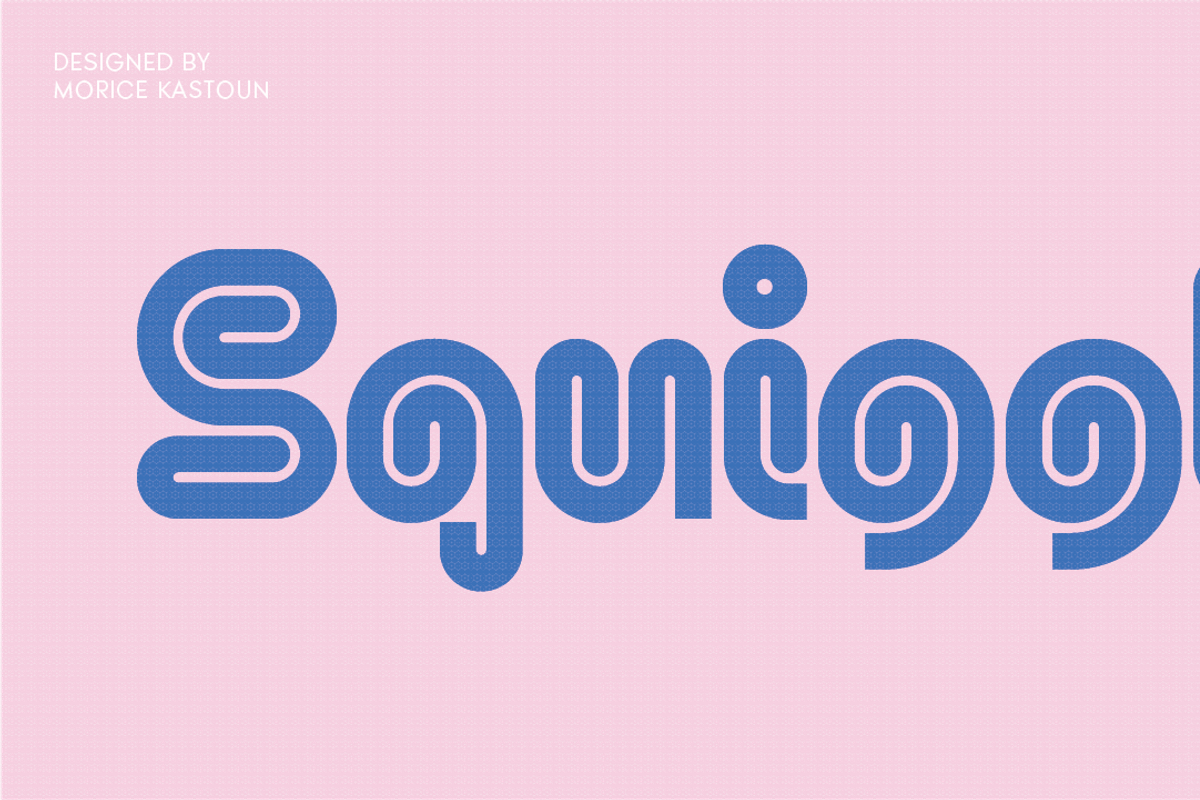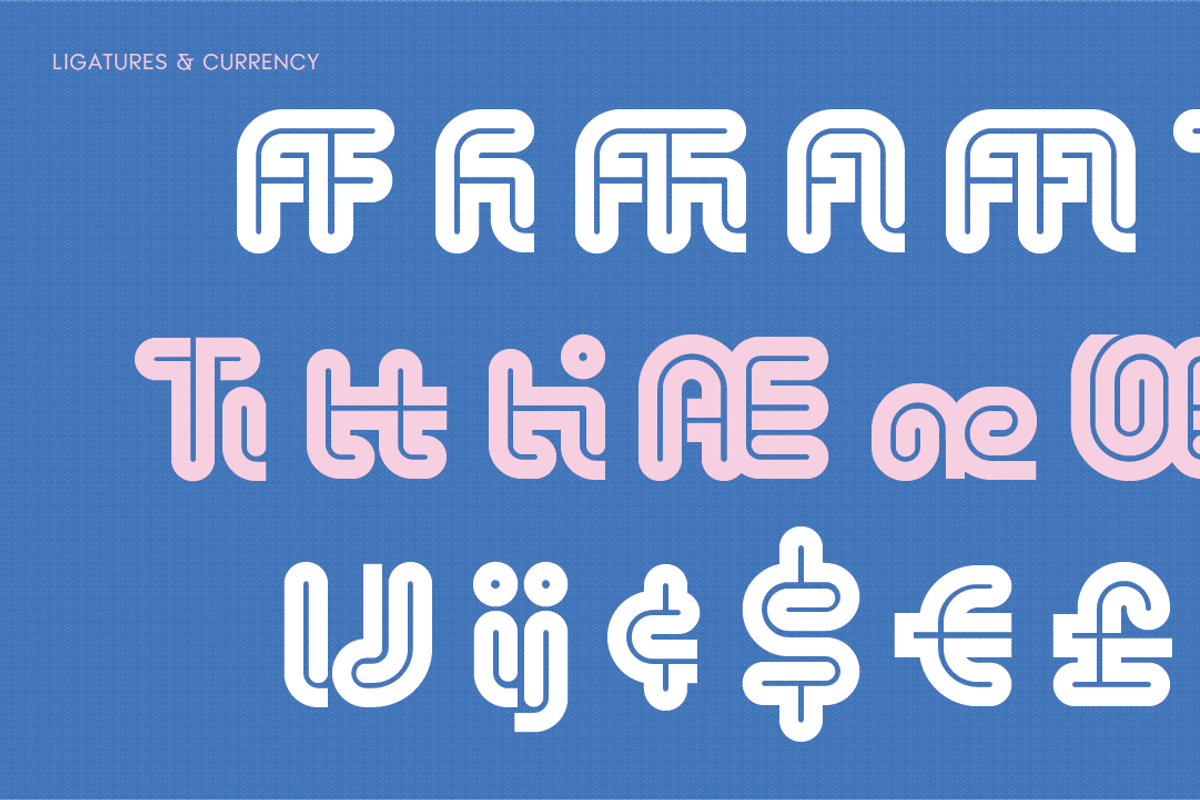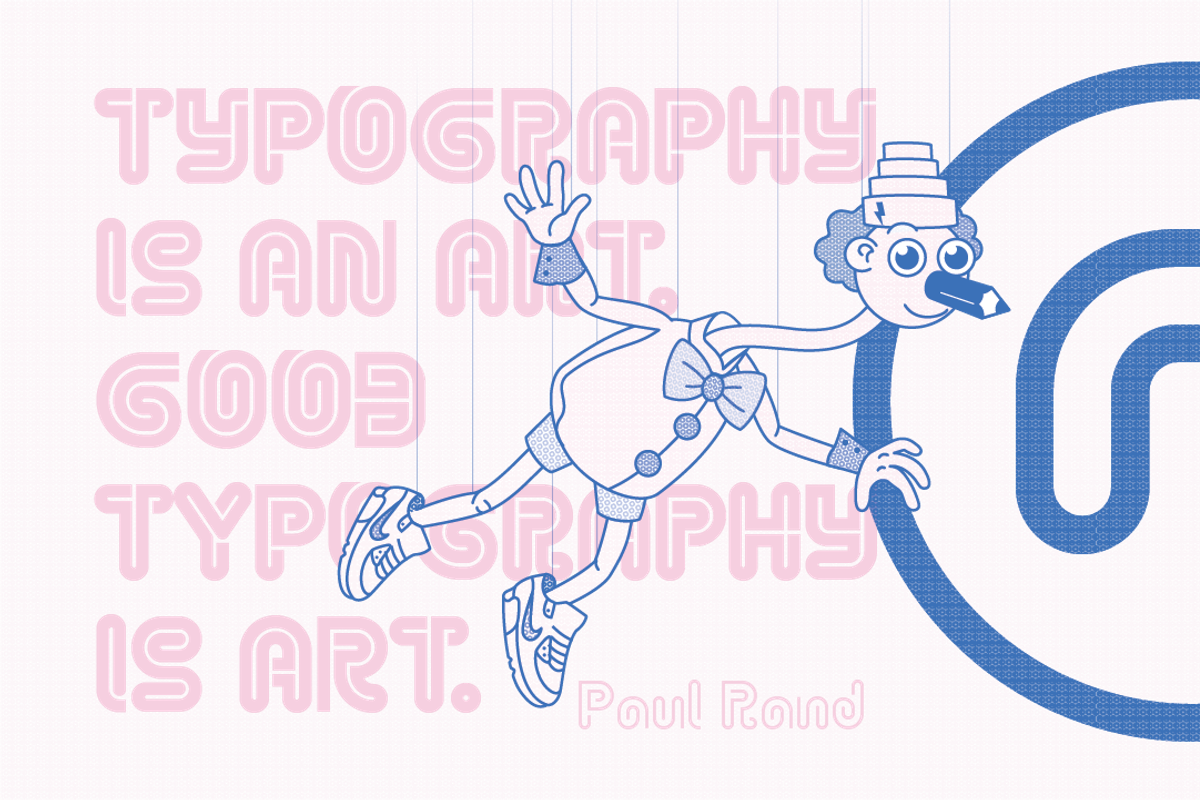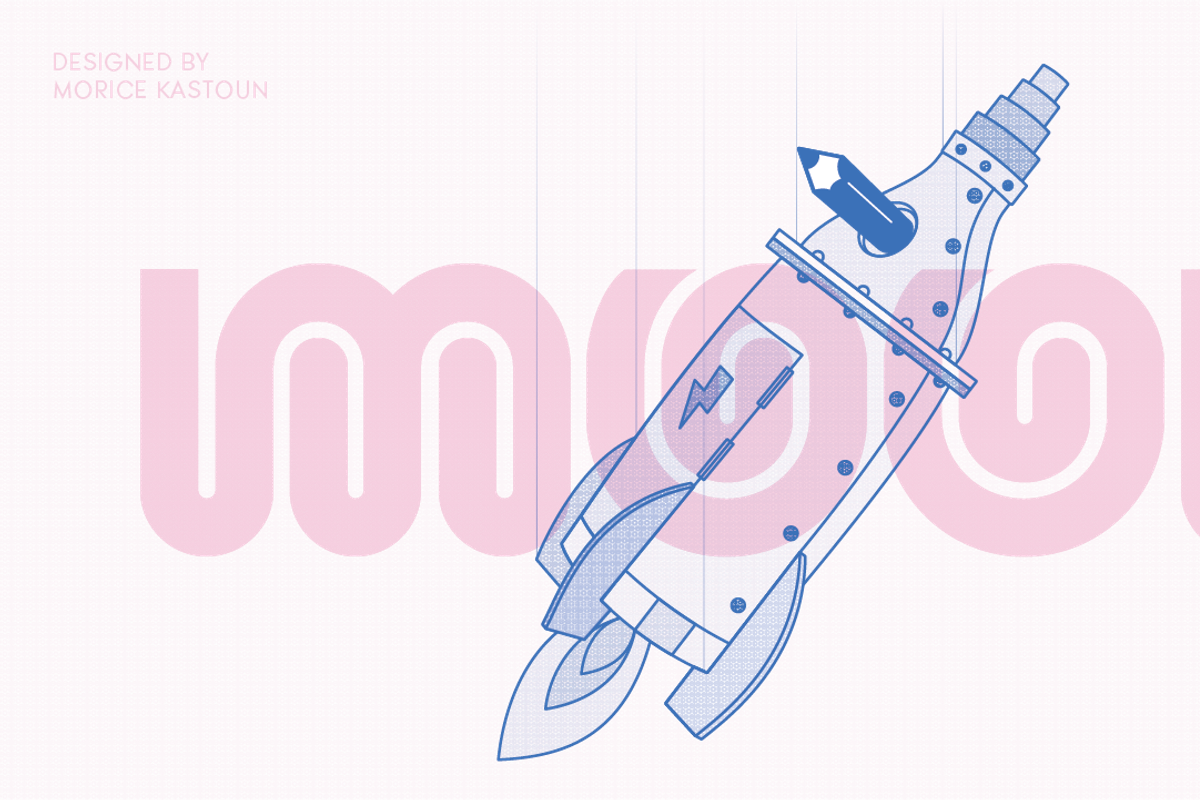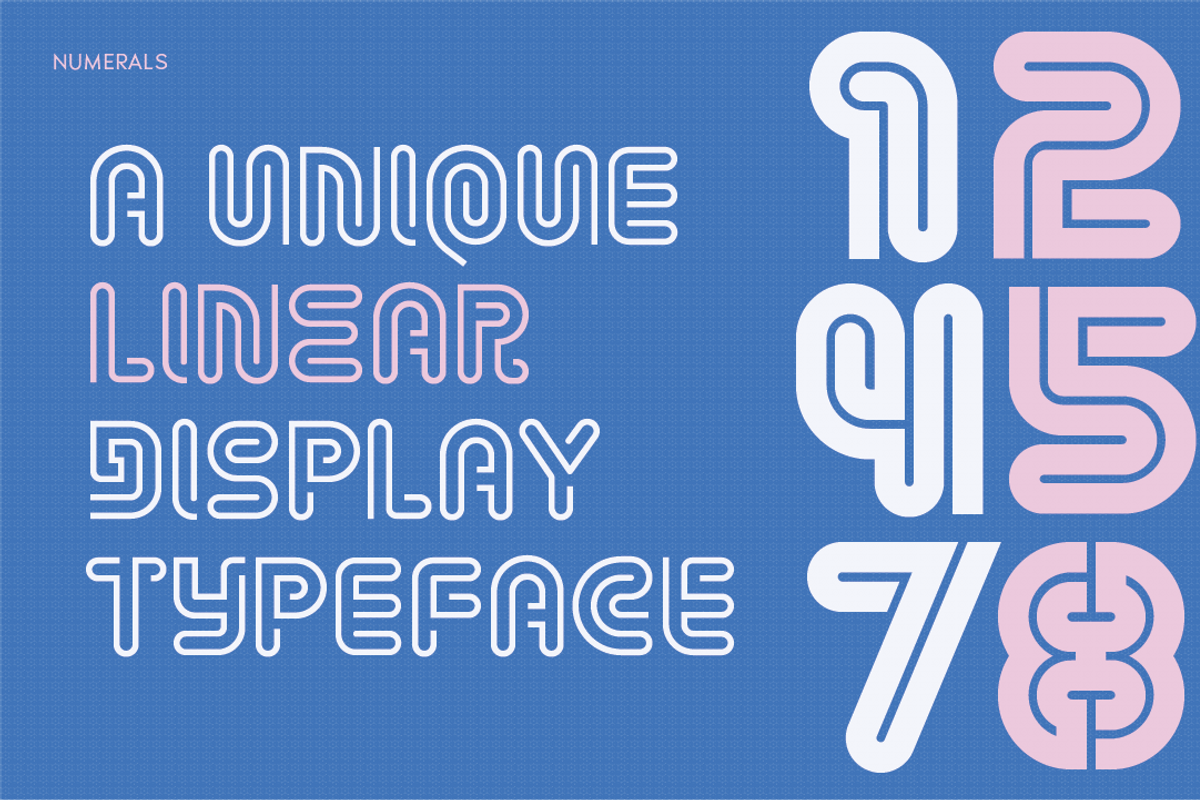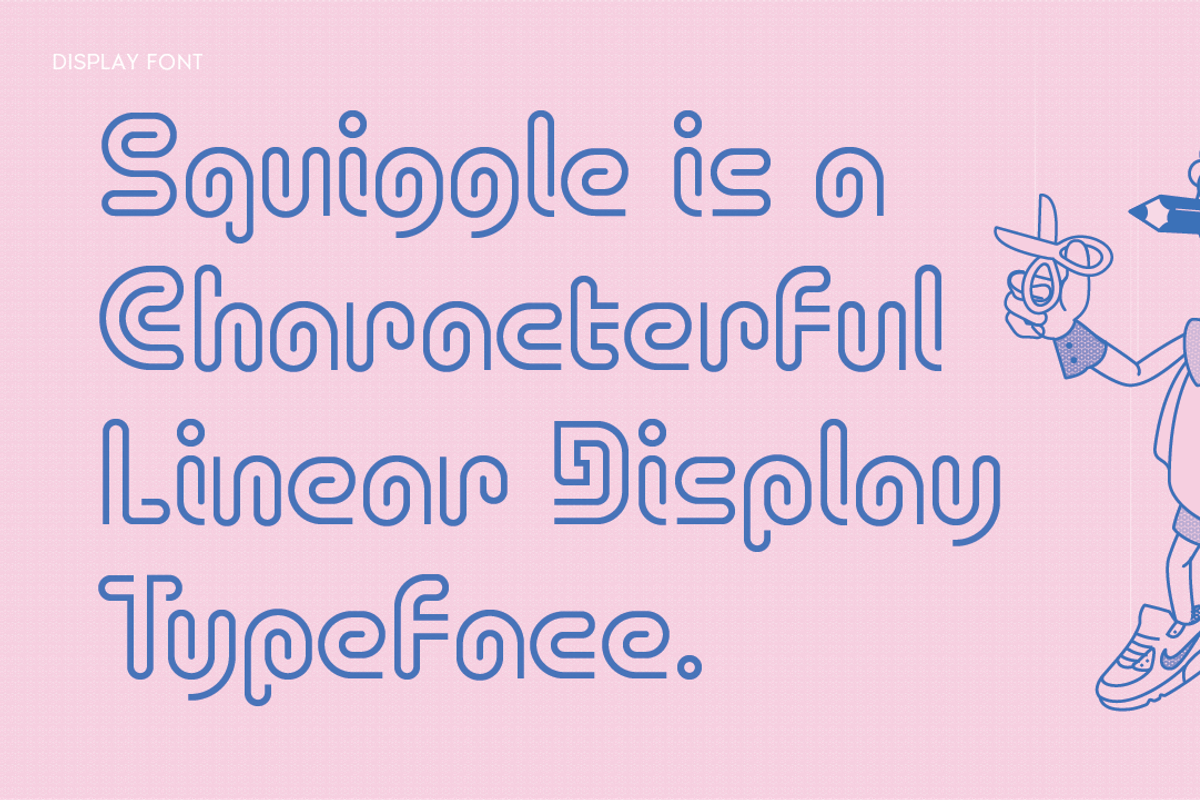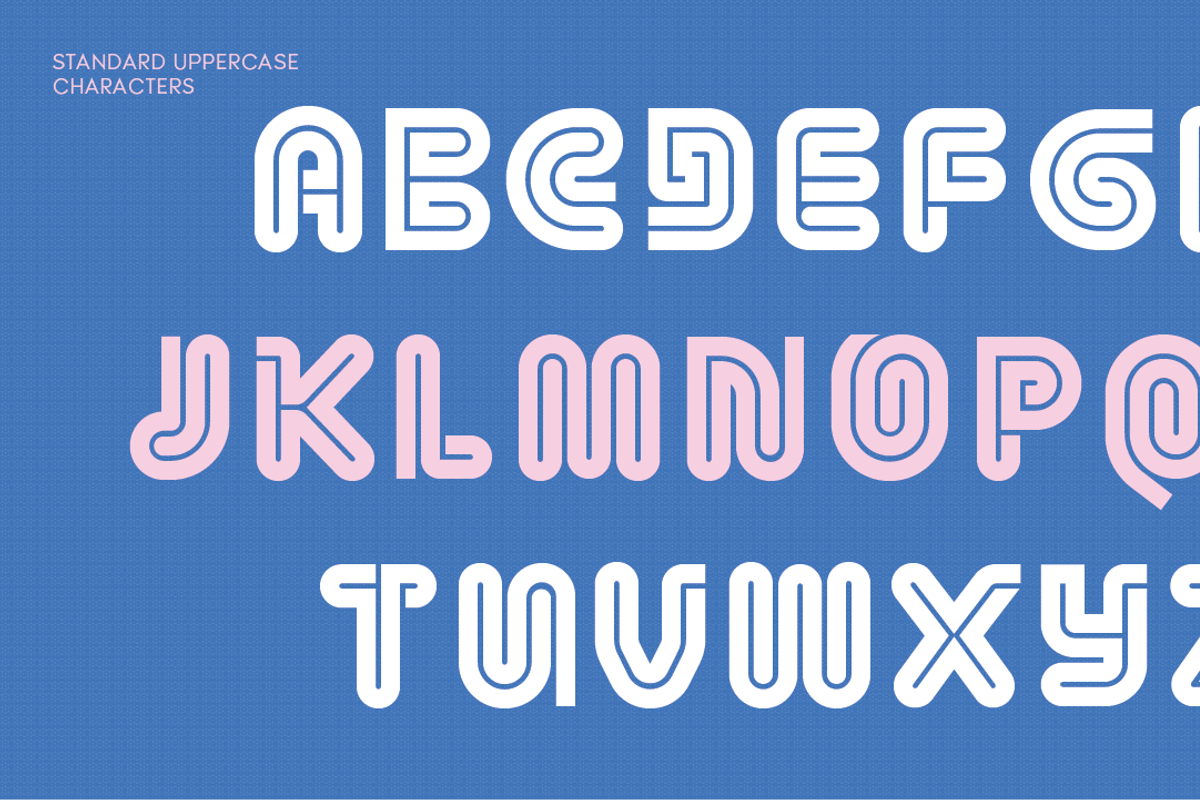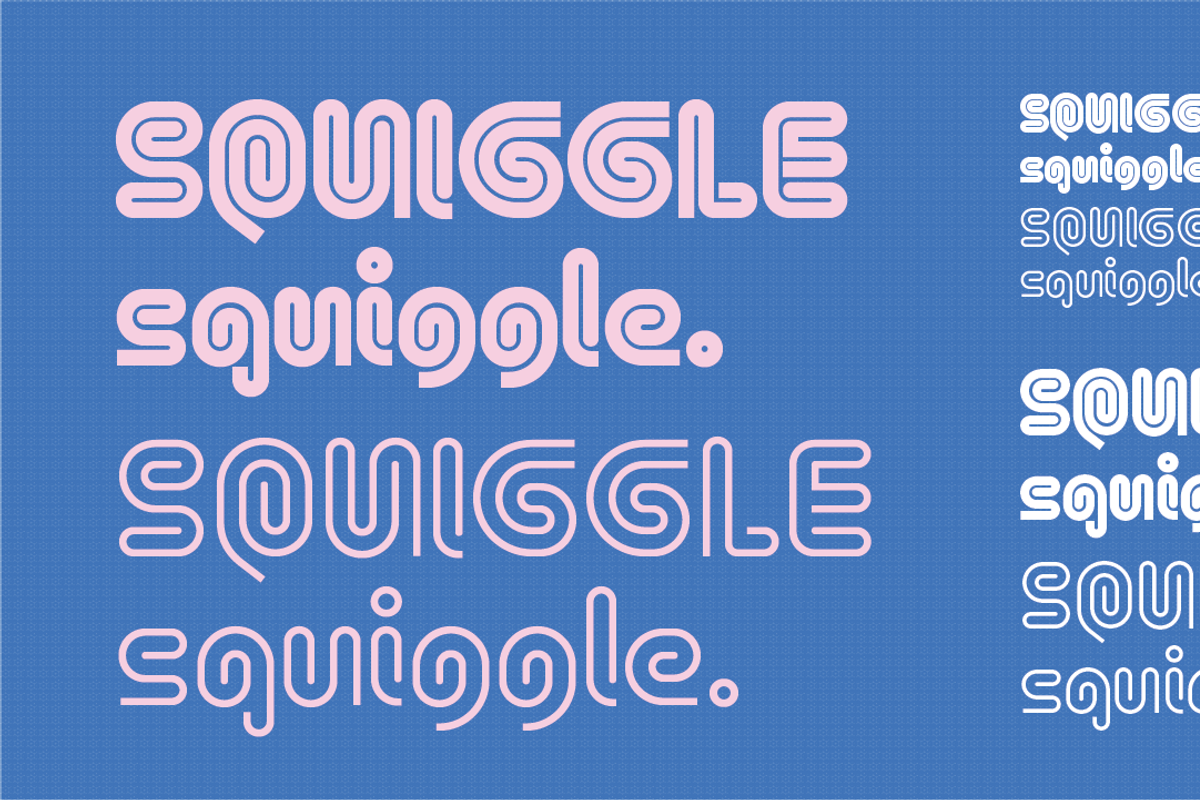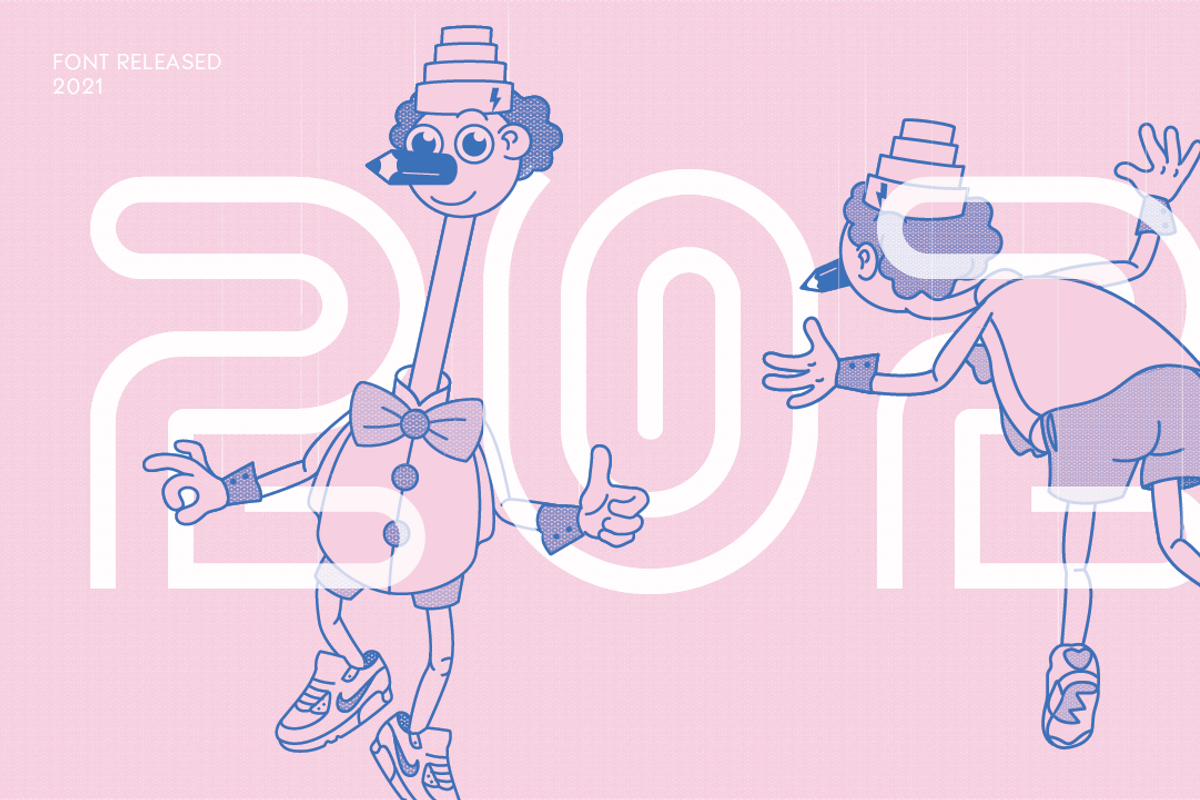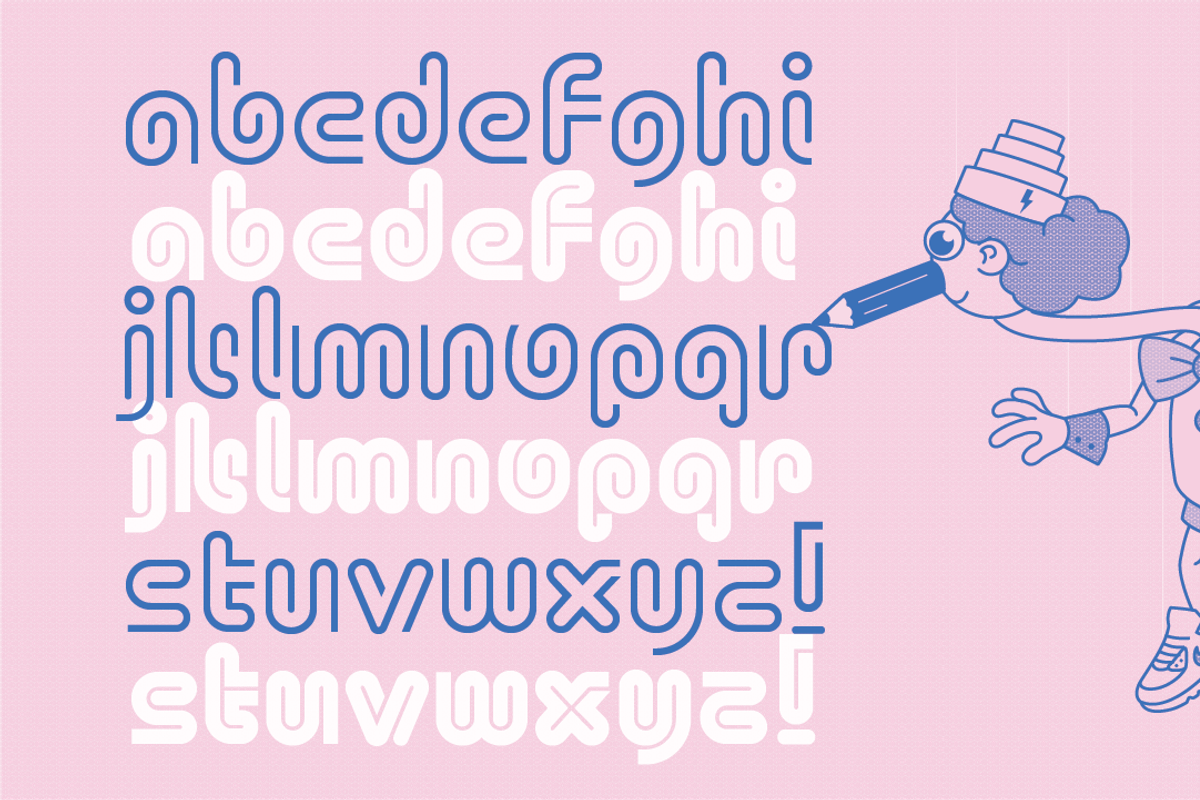
Squiggle
Squiggle is a geometric display typeface characterized by its rounded forms and distinctive inline elements. Designed by Morice Kastoun for maximum legibility, it is available in two weights: Light and Bold.